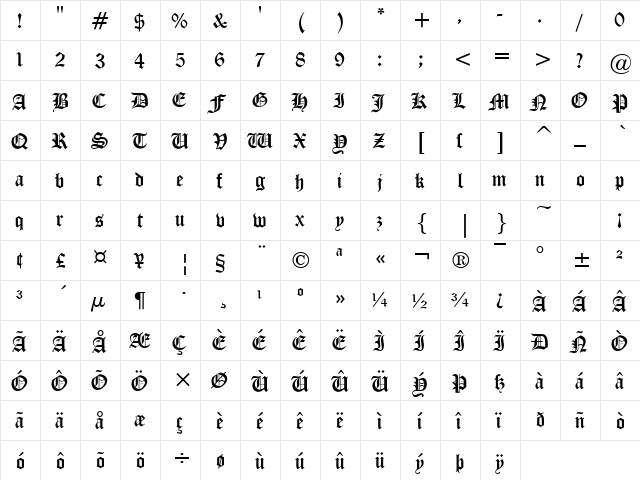
Iglesia Light
Design Context for Iglesia Typeface
Iglesia is a composed and adaptable typeface that performs quietly and consistently across a wide range of design contexts. Its slender proportions lend an understated elegance to any composition.
Pro Tip: Use Iglesia in both headline and body roles to test its range before committing to a single application.